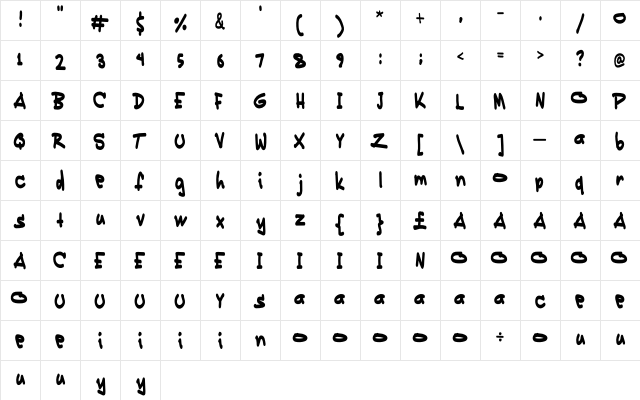
Pikikay Regular
Design Context for Pikikay Typeface
Pikikay is a composed and adaptable typeface that performs quietly and consistently across a wide range of design contexts.